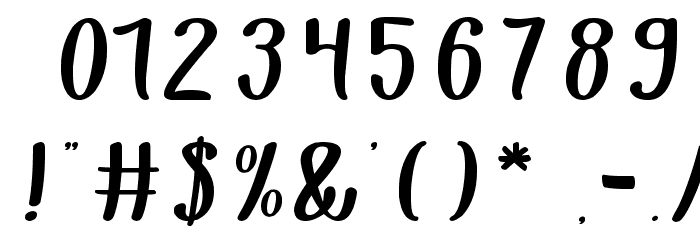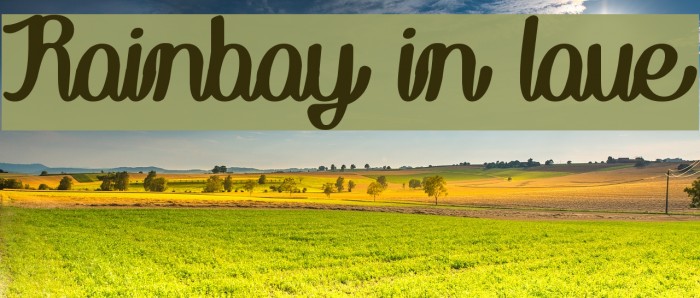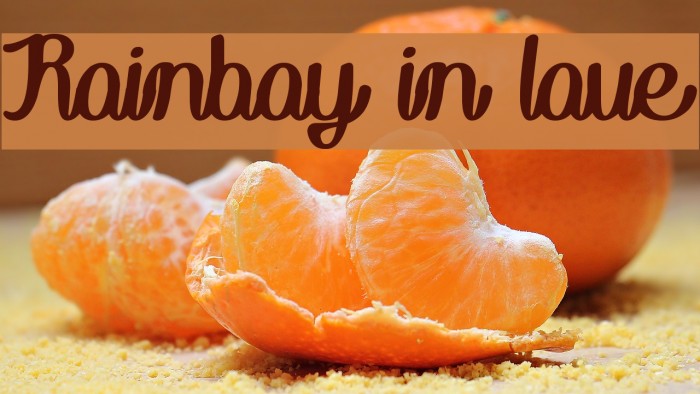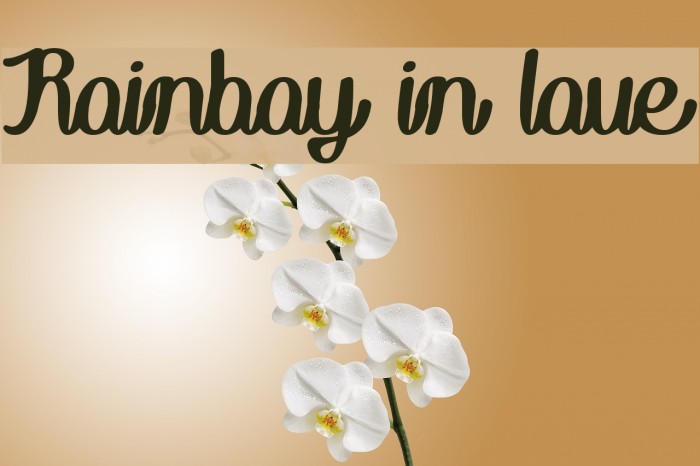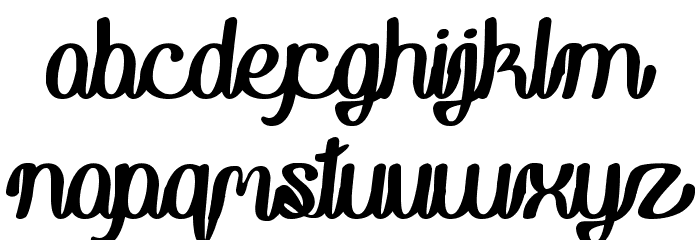
Rainboy in love Font
This font features a playful and whimsical script style, characterized by its flowing, connected letters that mimic the fluidity of handwriting. The uppercase letters are bold and dynamic, with exaggerated curves and loops that add a sense of movement and energy. The lowercase letters maintain this lively aesthetic, with a slightly more compact form that ensures readability. Numbers and special characters are crafted with the same attention to detail, ensuring a cohesive look across all text elements. The overall design is both expressive and approachable, making it ideal for projects that require a personal touch.
A playful and whimsical script font with bold, flowing letters.